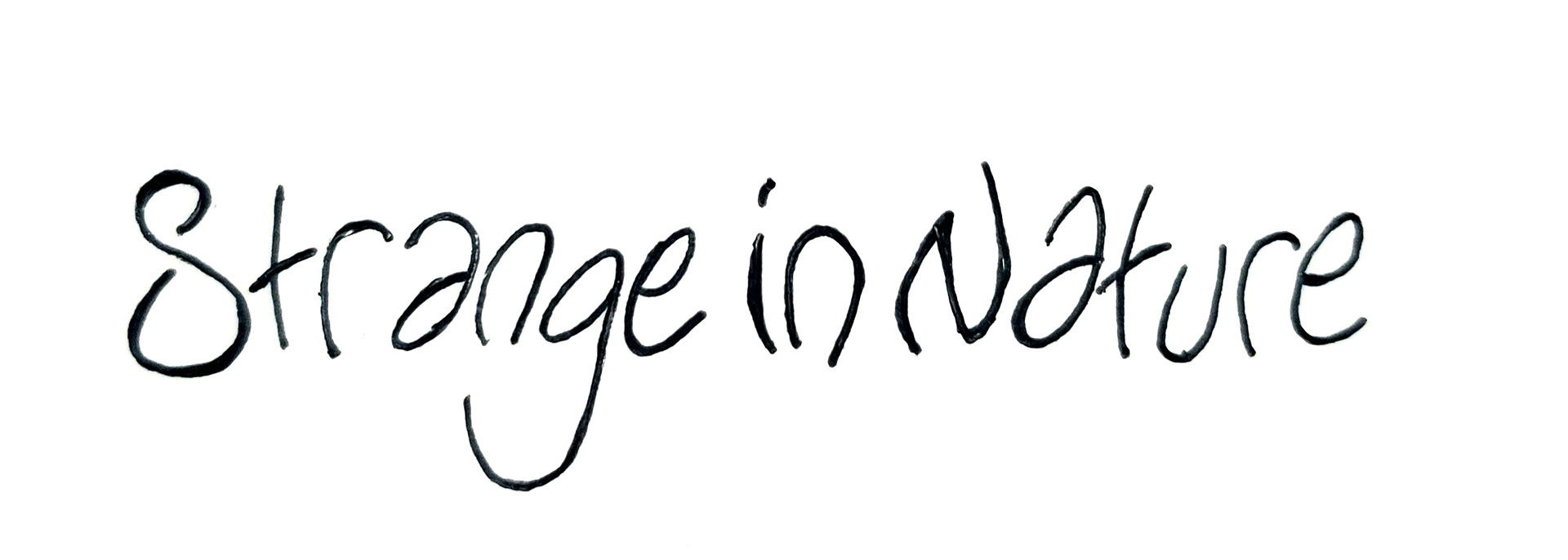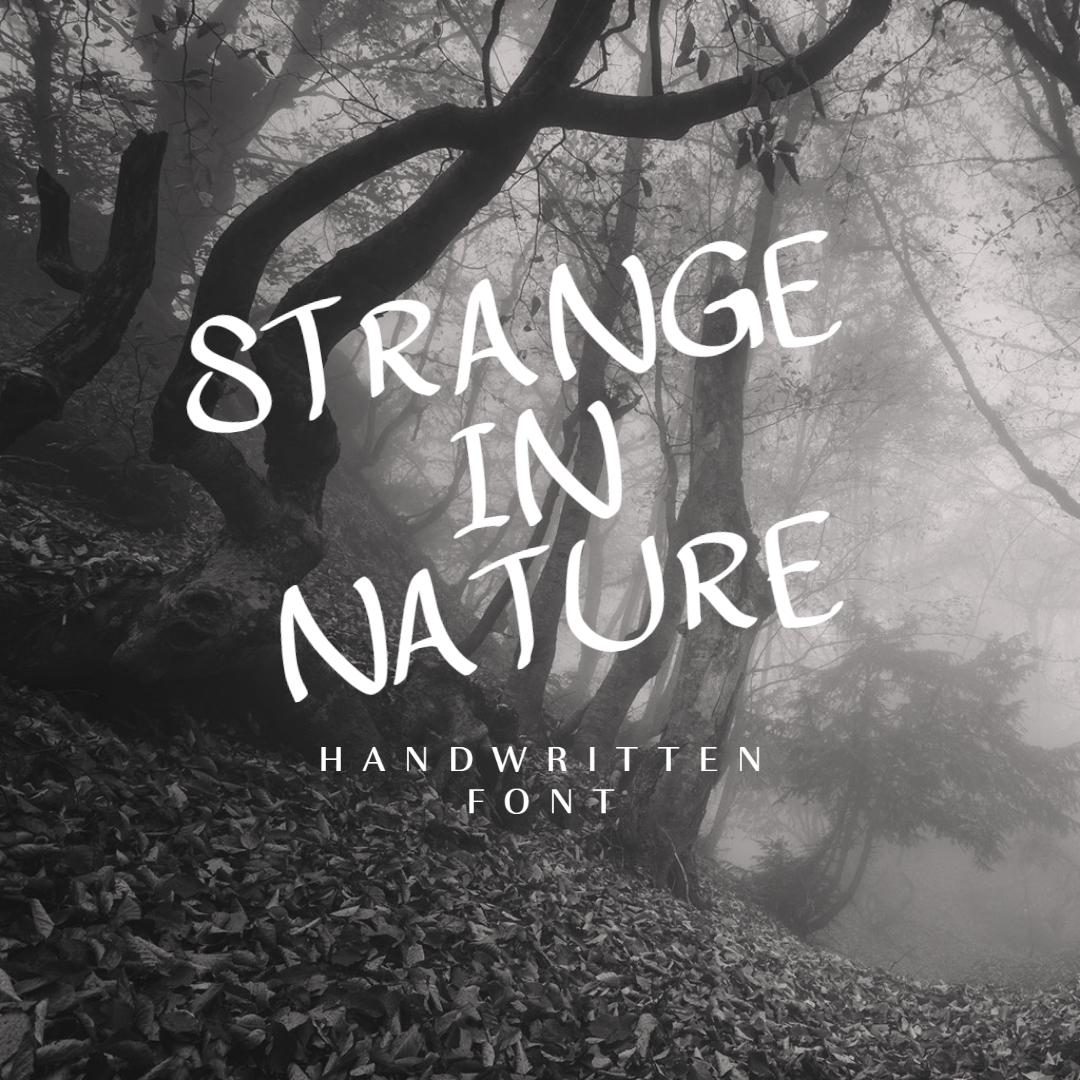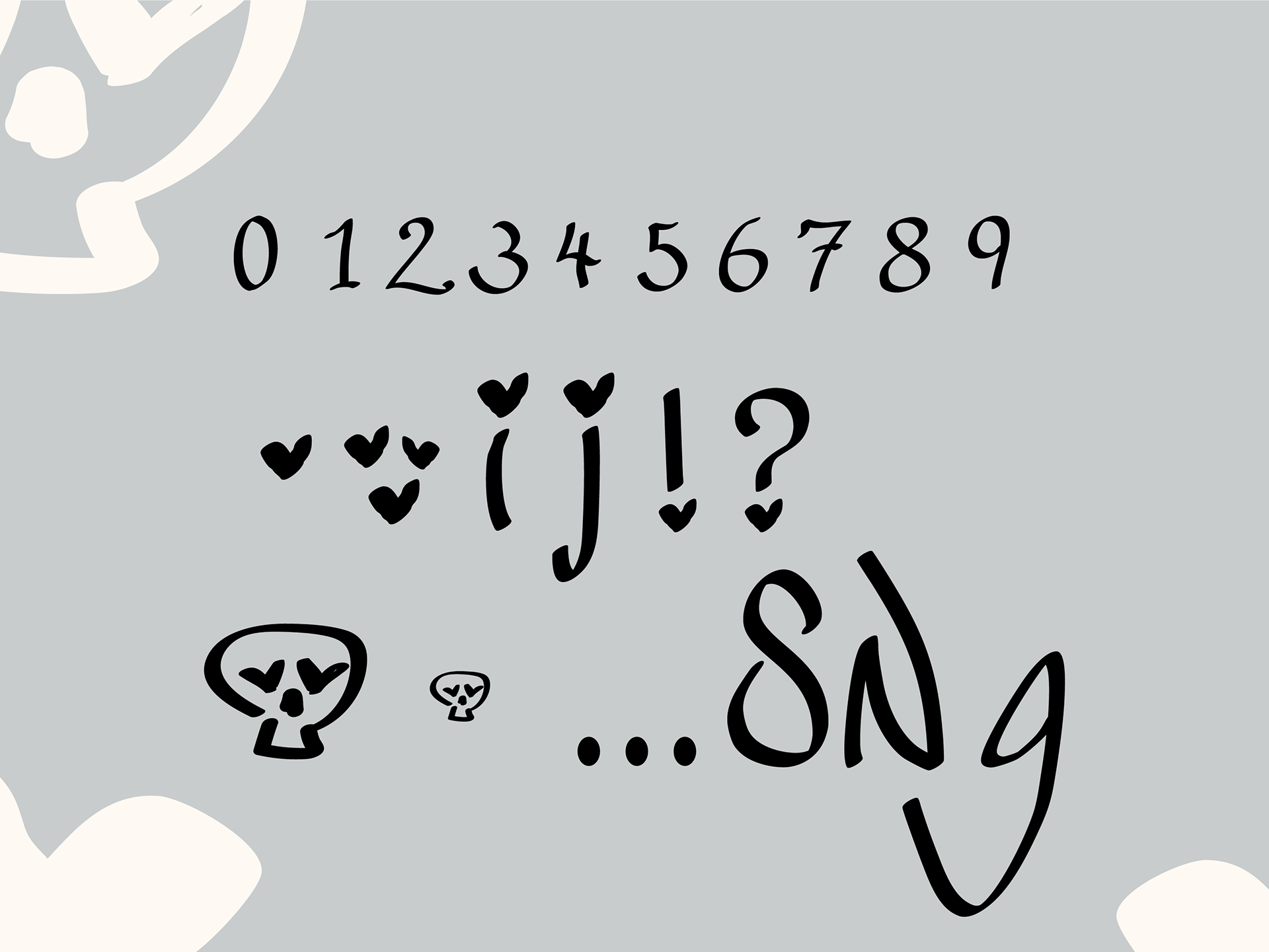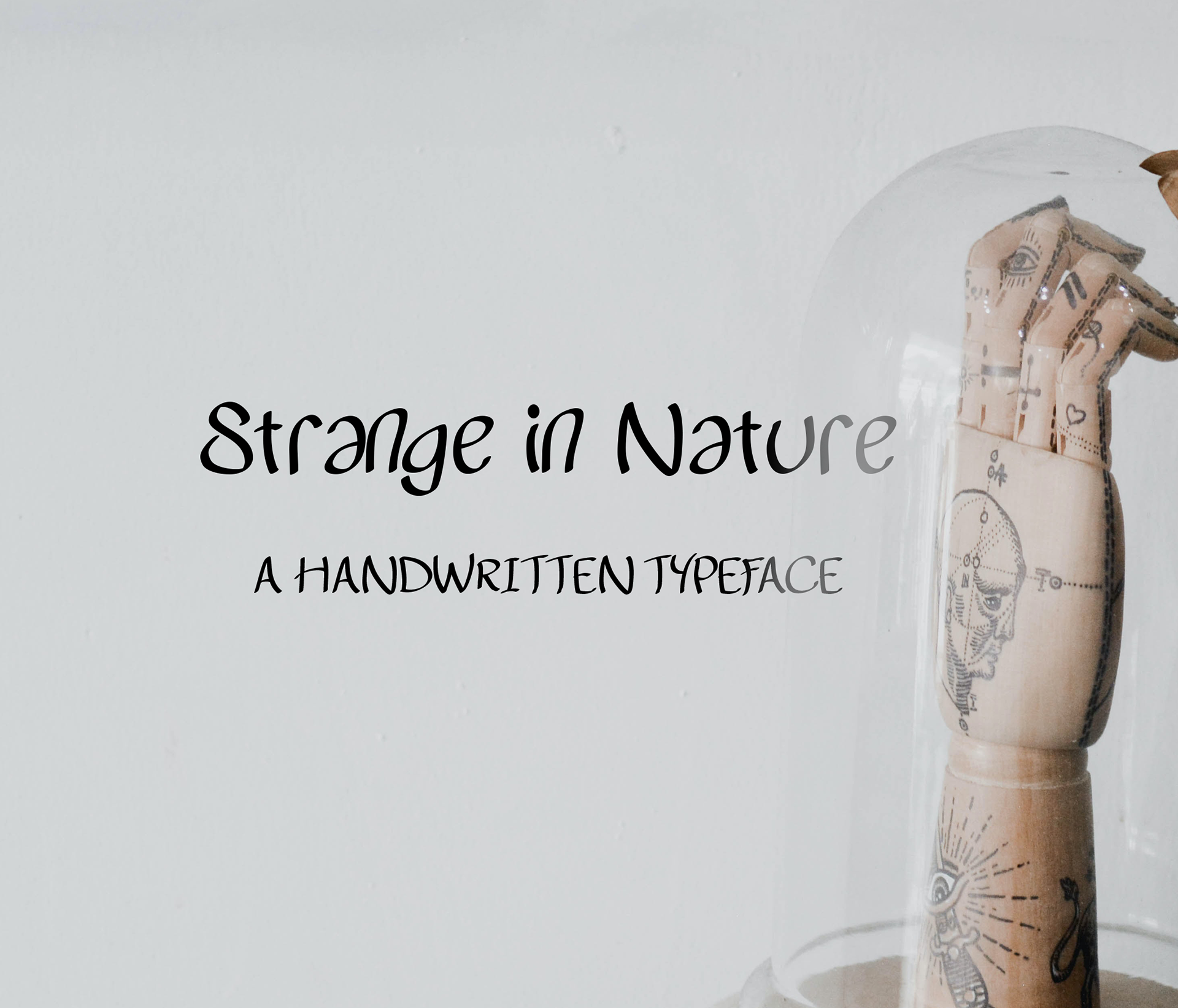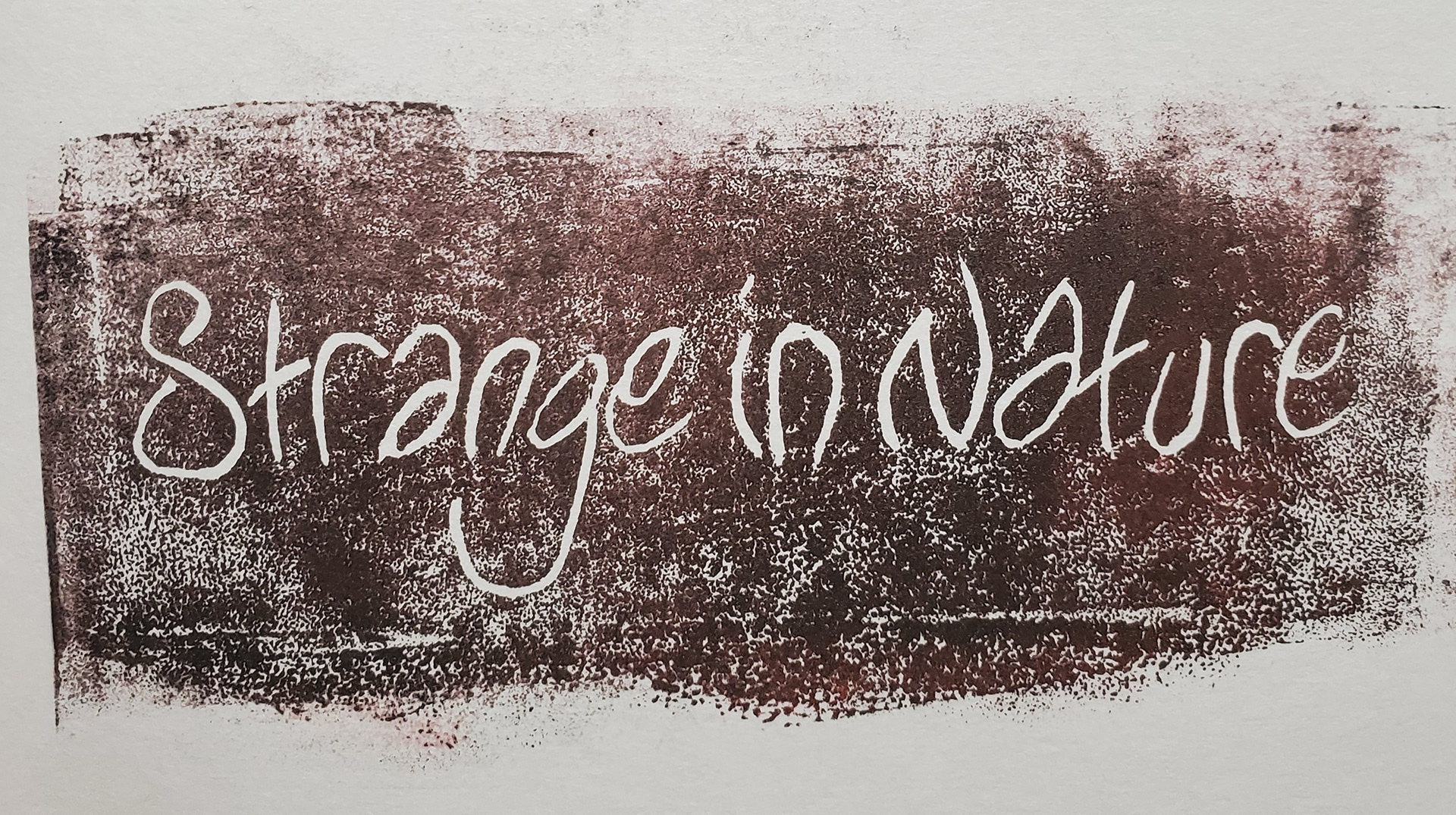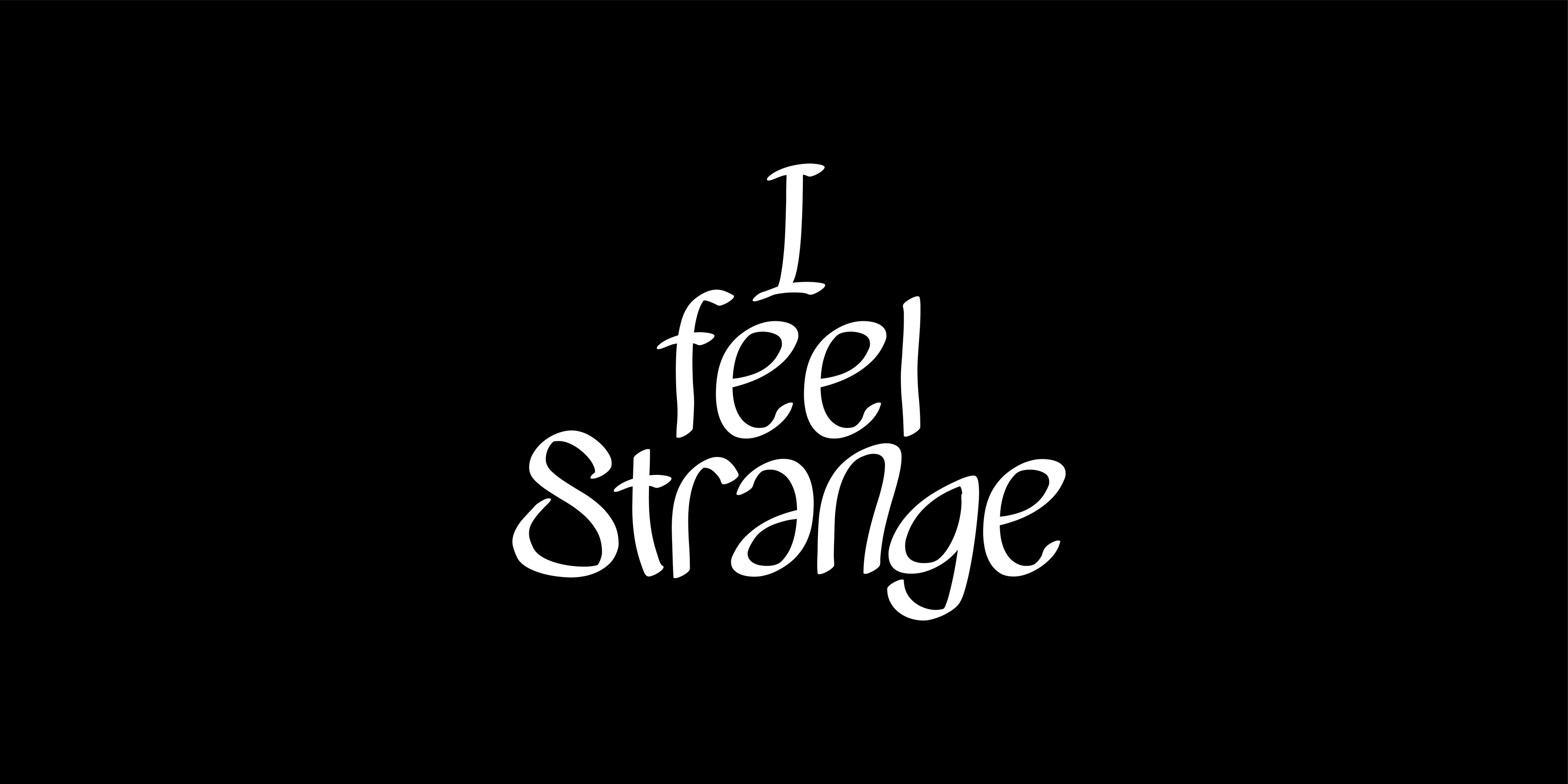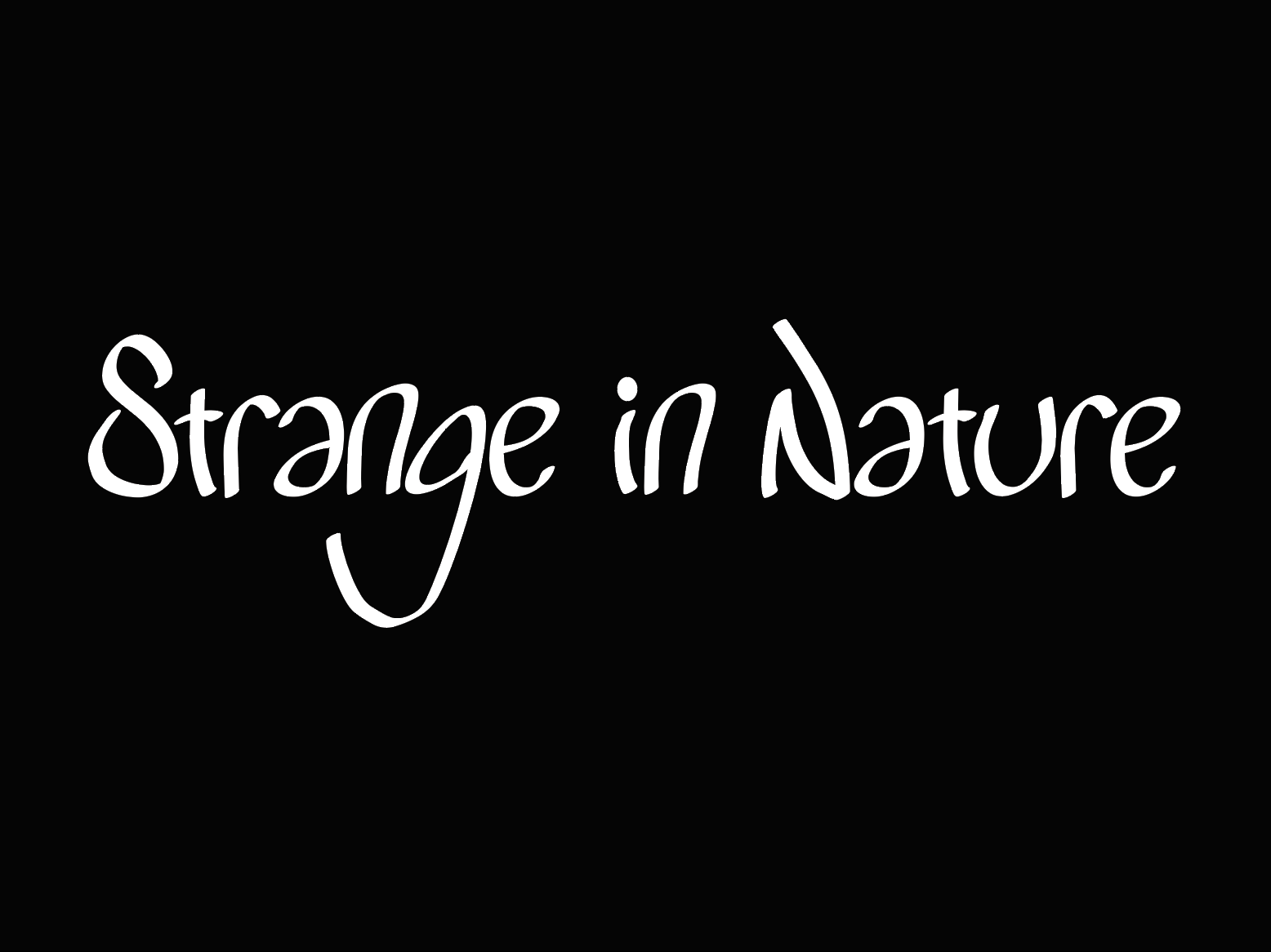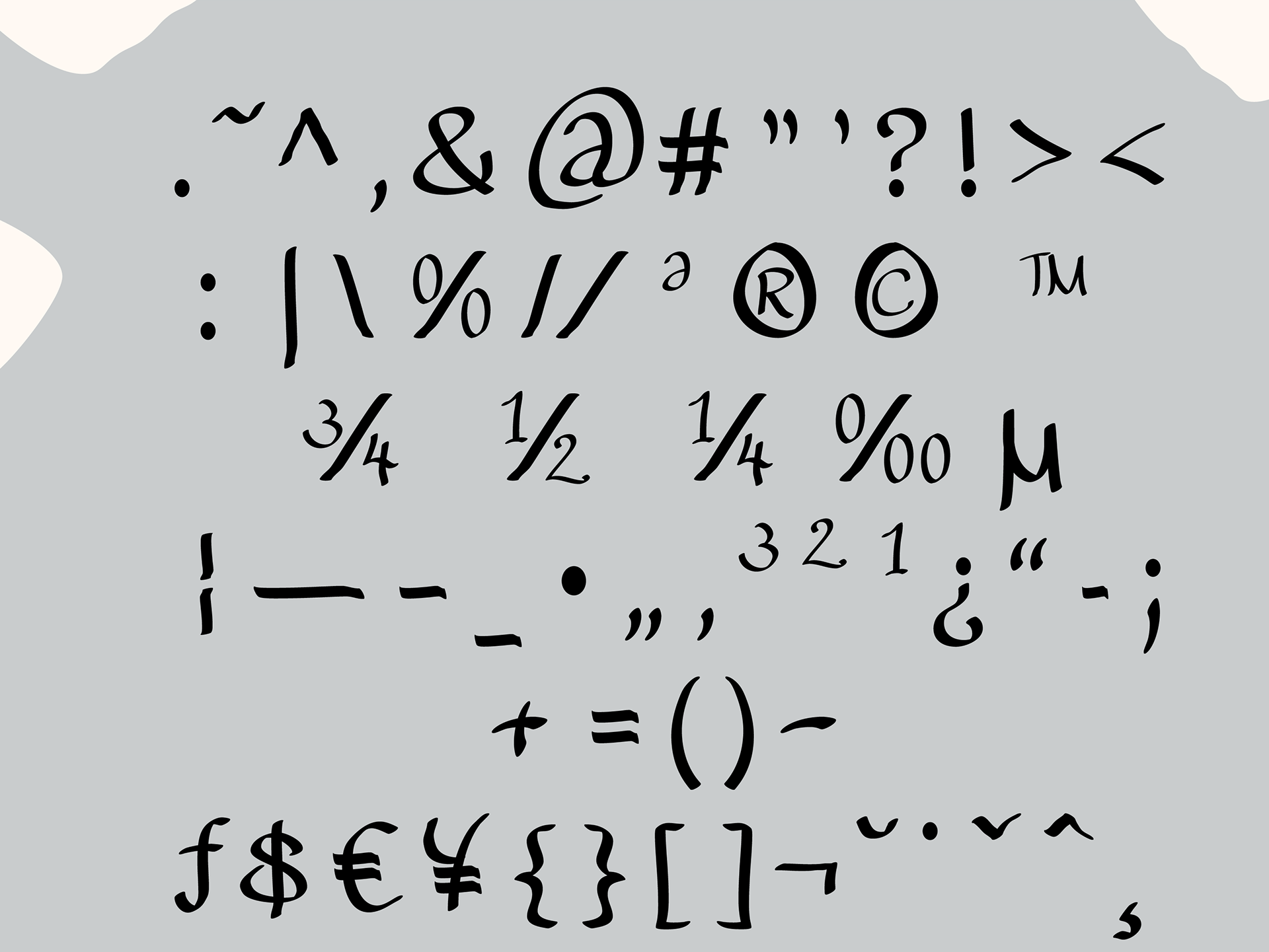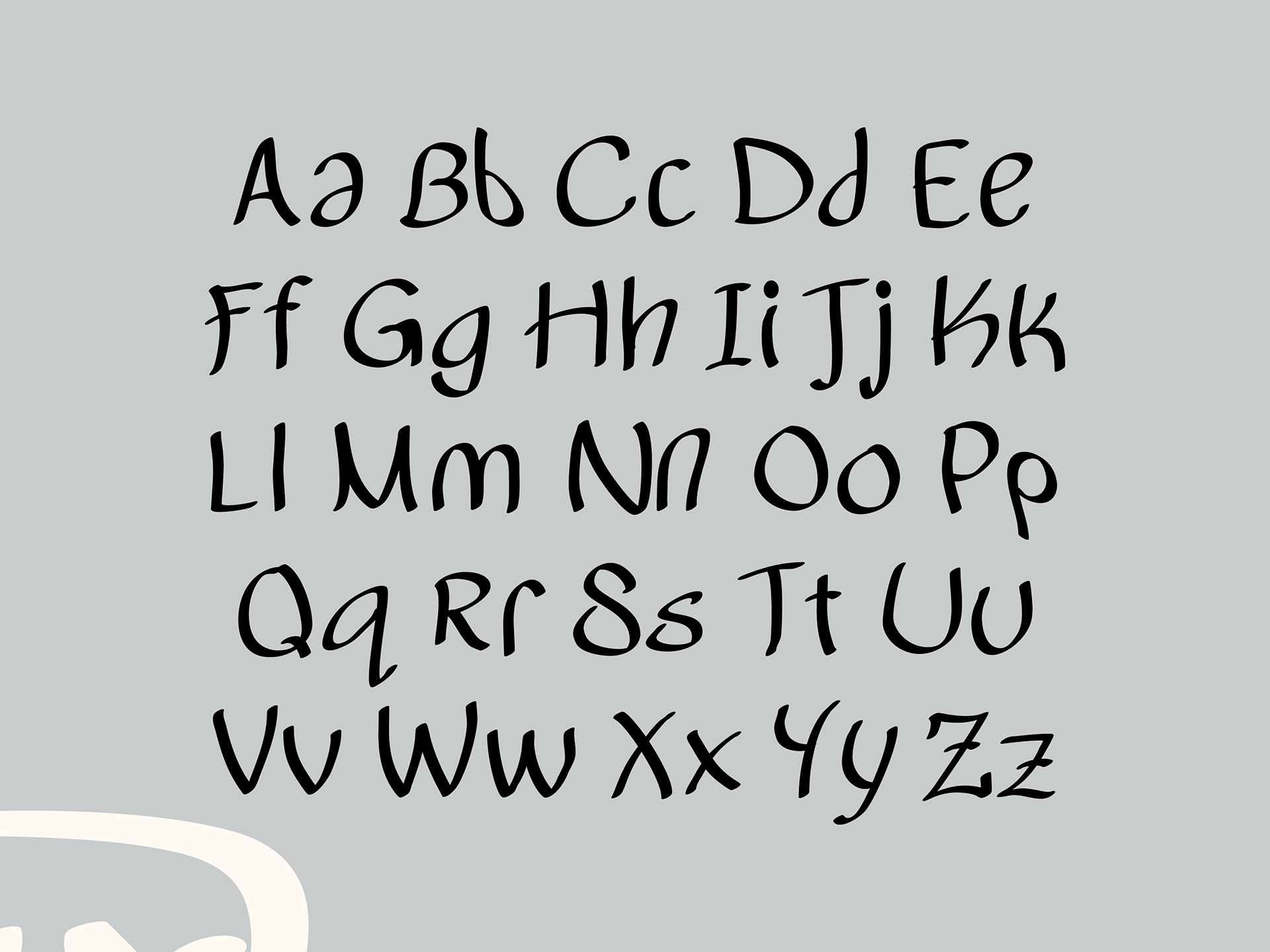
Strange in Nature is a typeface designed in Font Lab Studio based entirely on my personal handwriting. There are over 40 unique glyphs which encompasses multiple languages, images, and unique iconography.